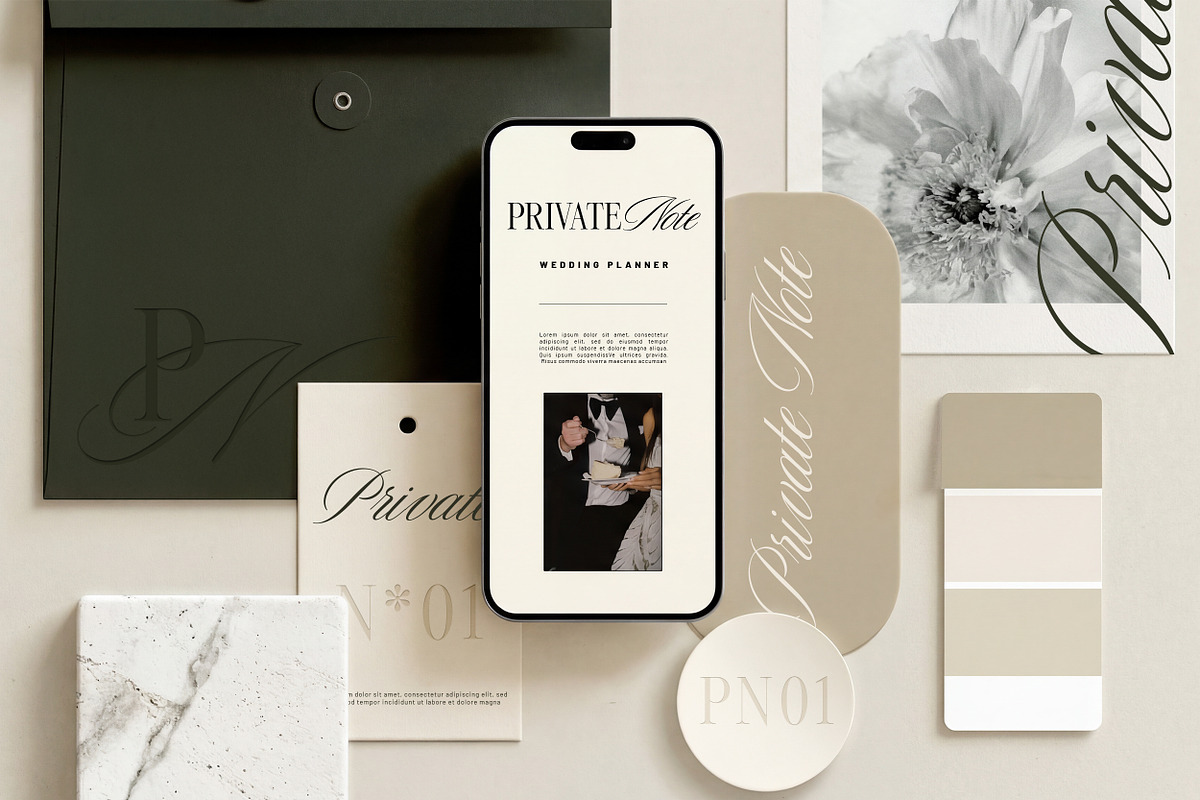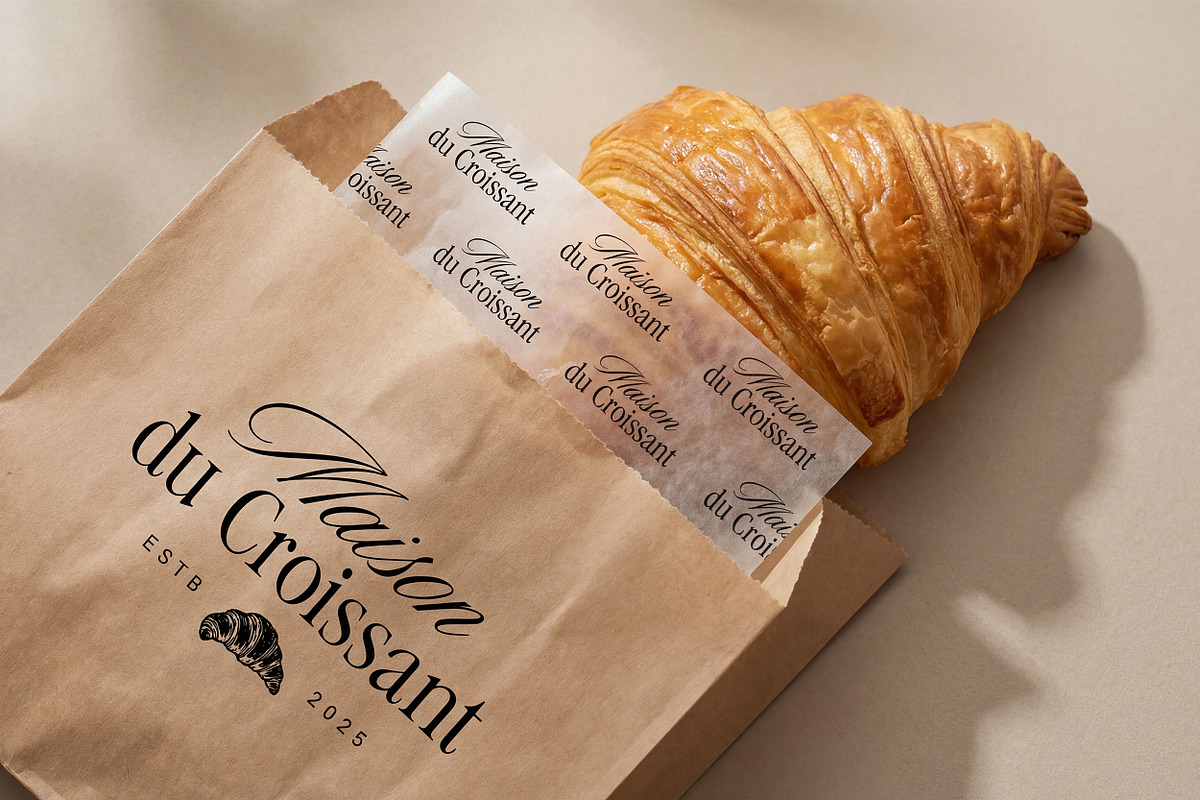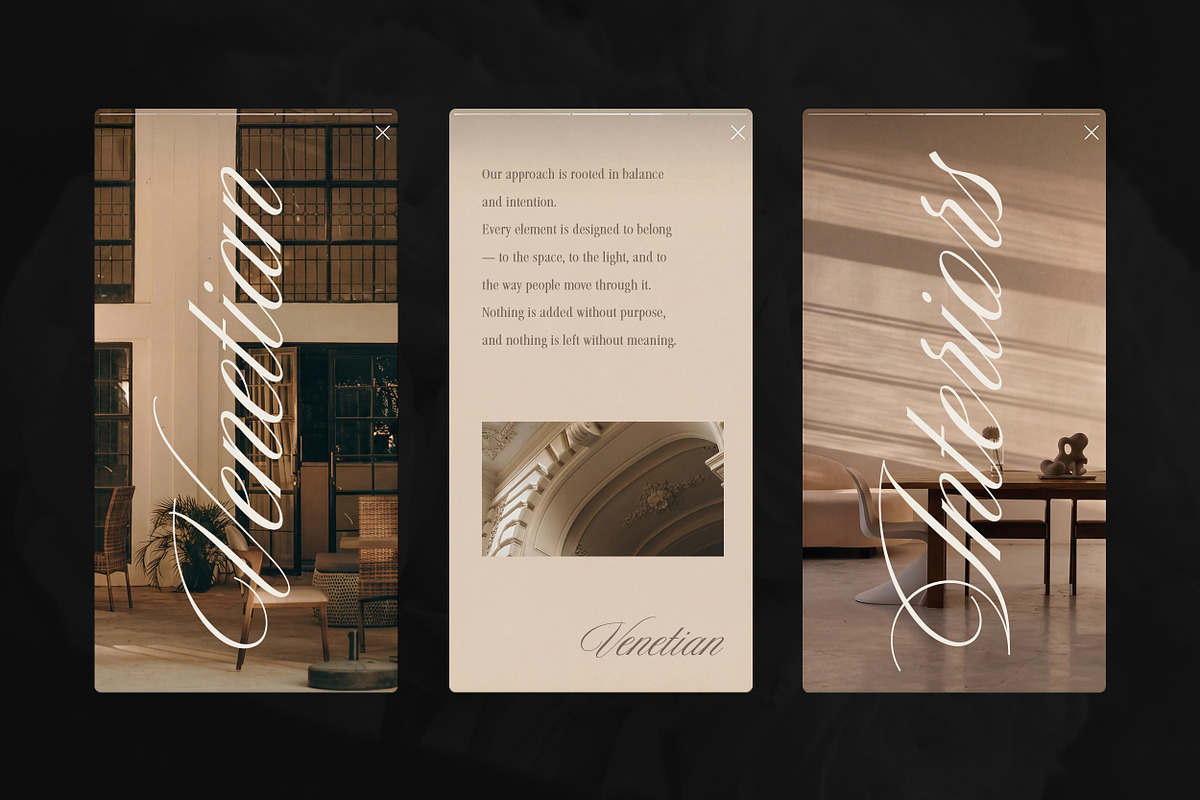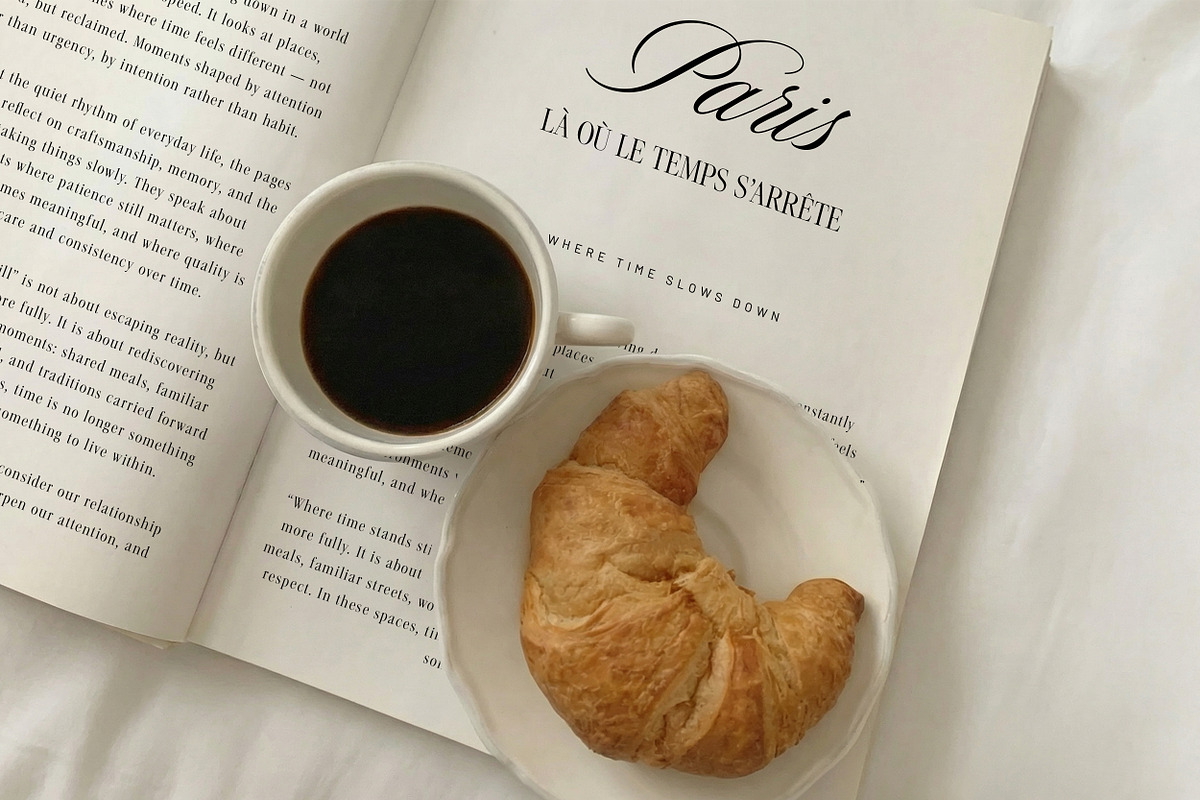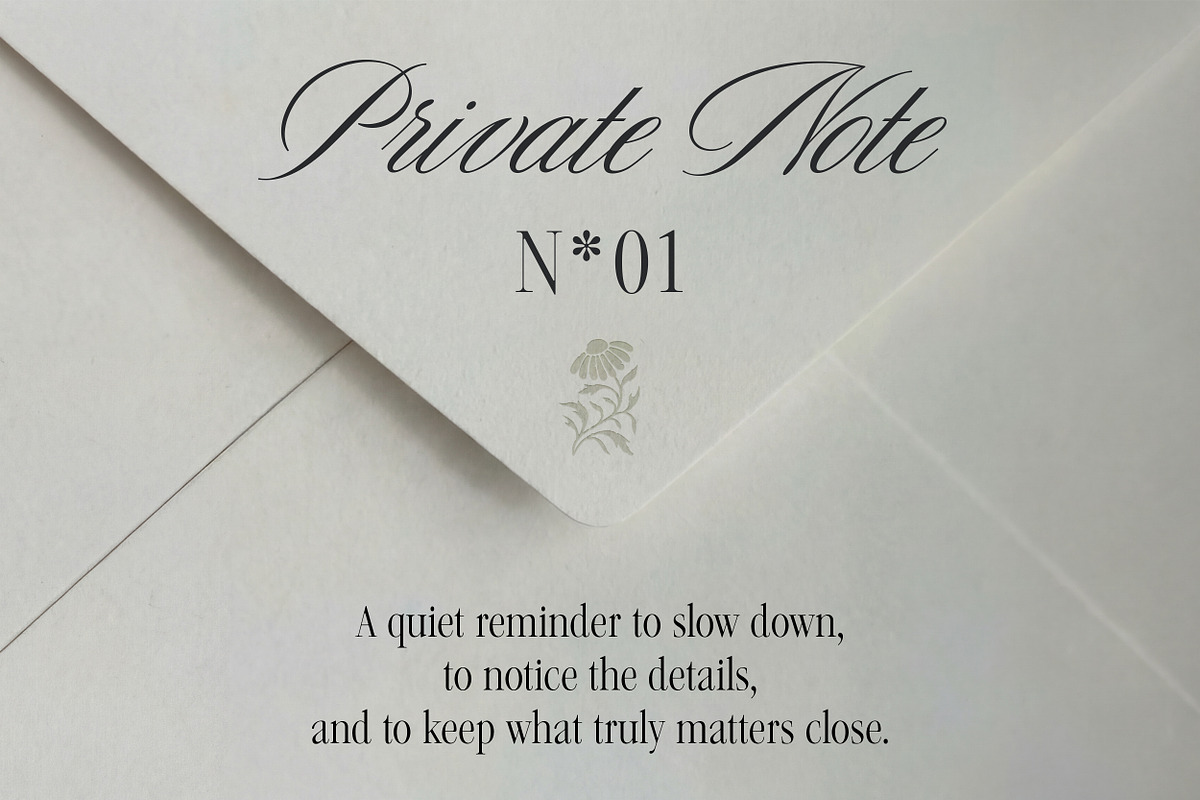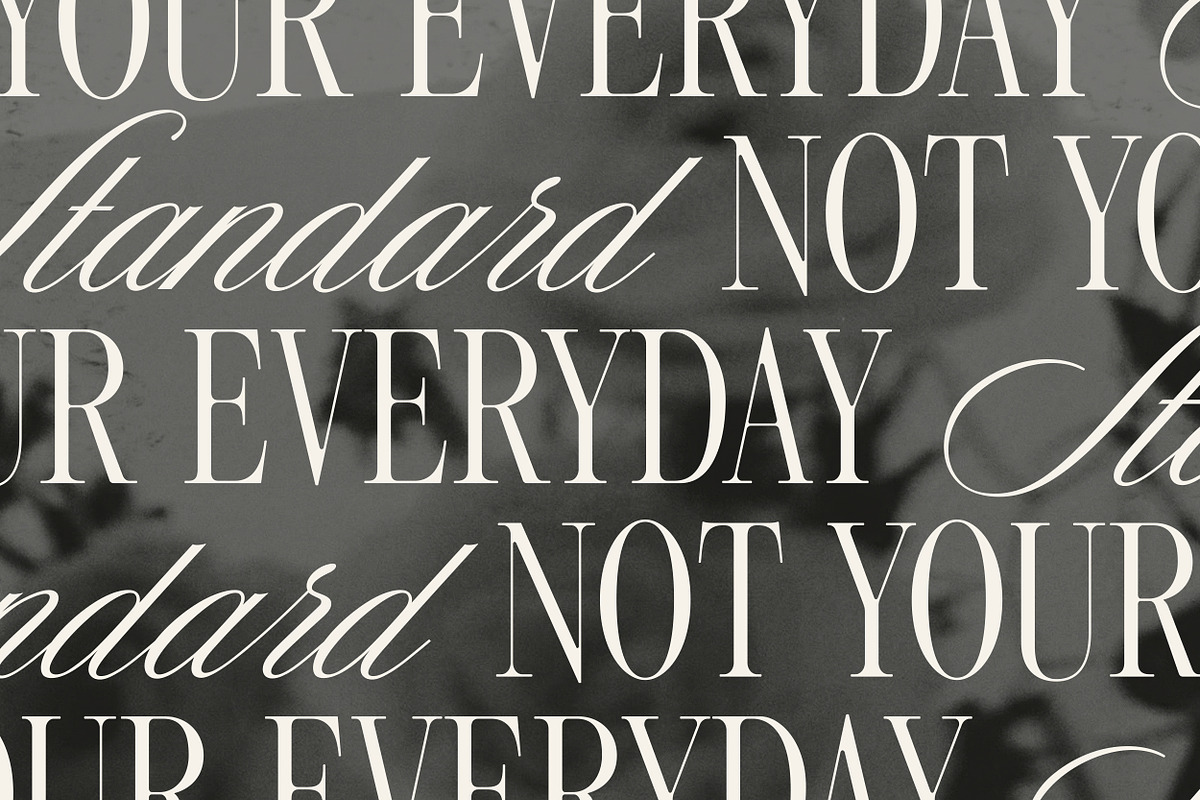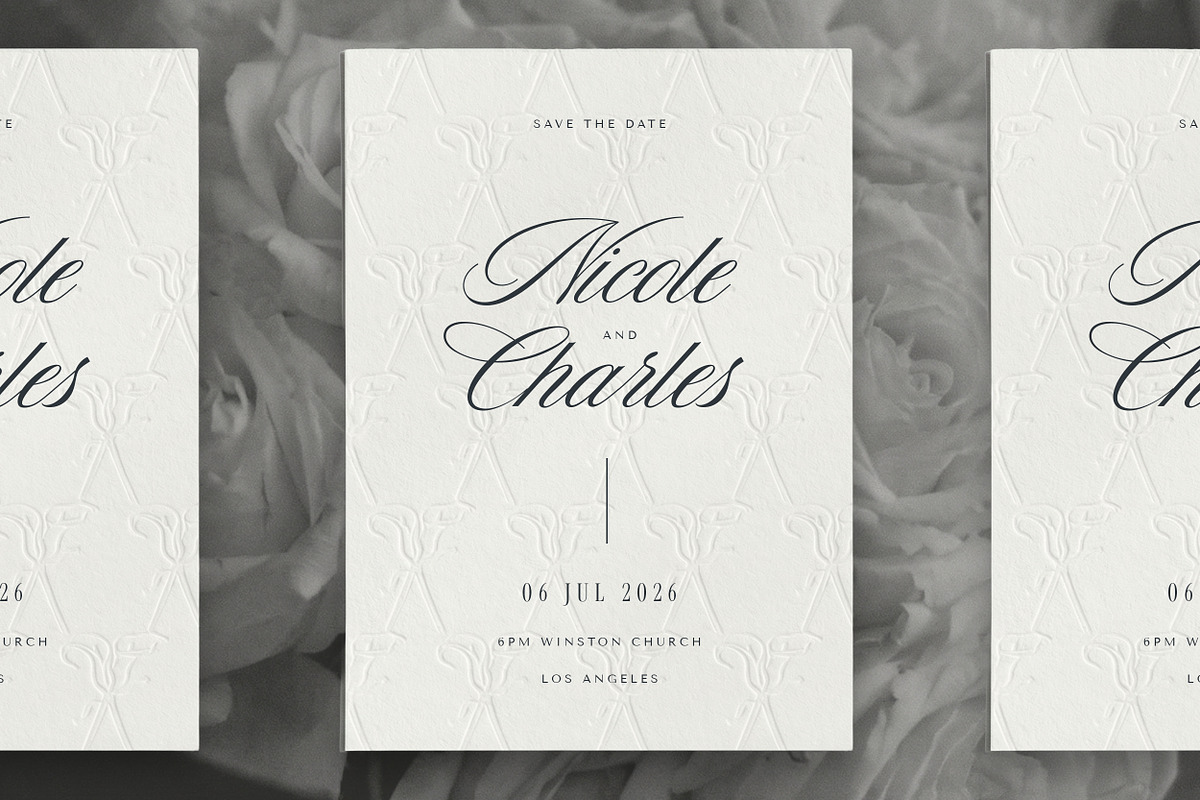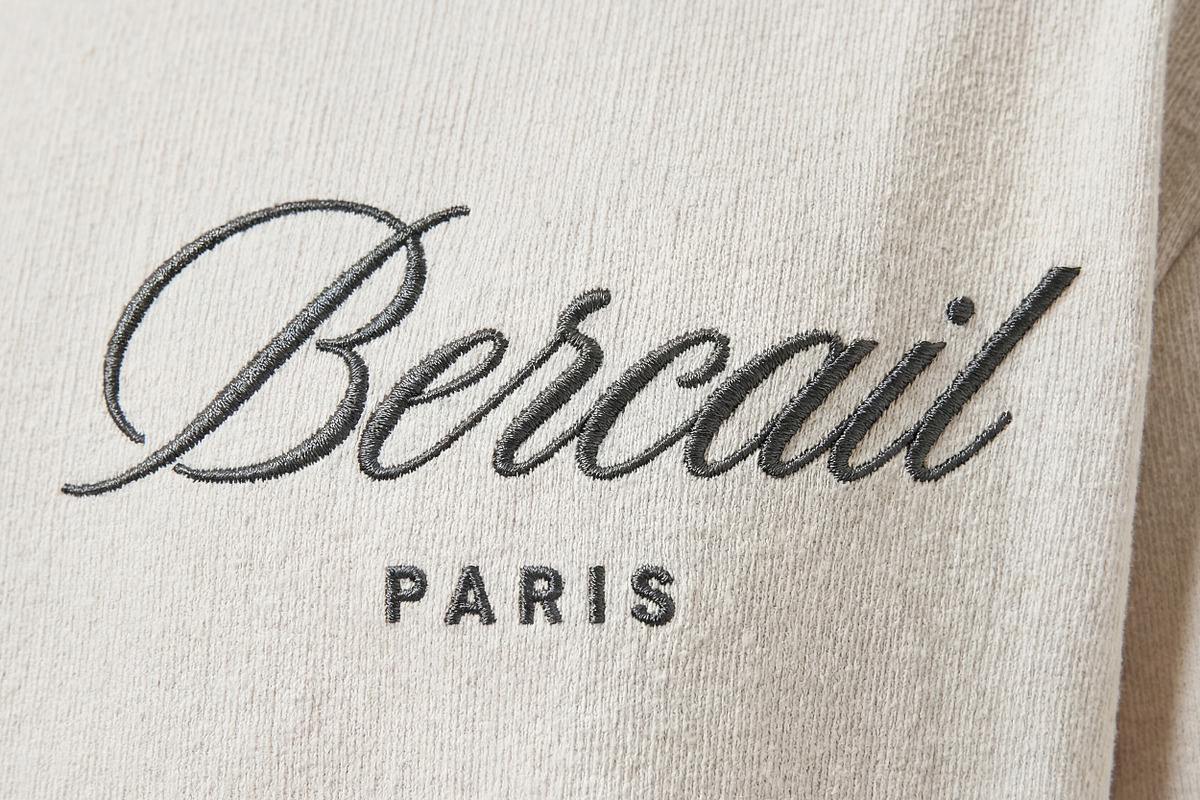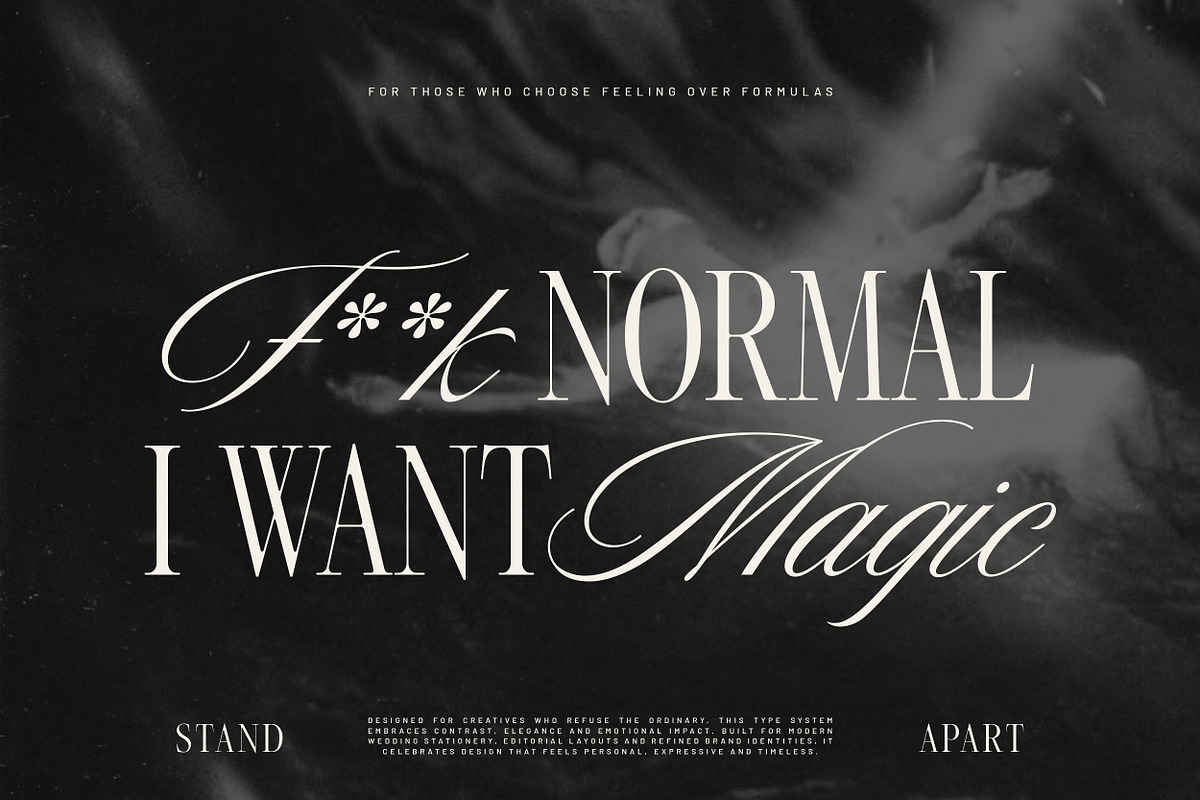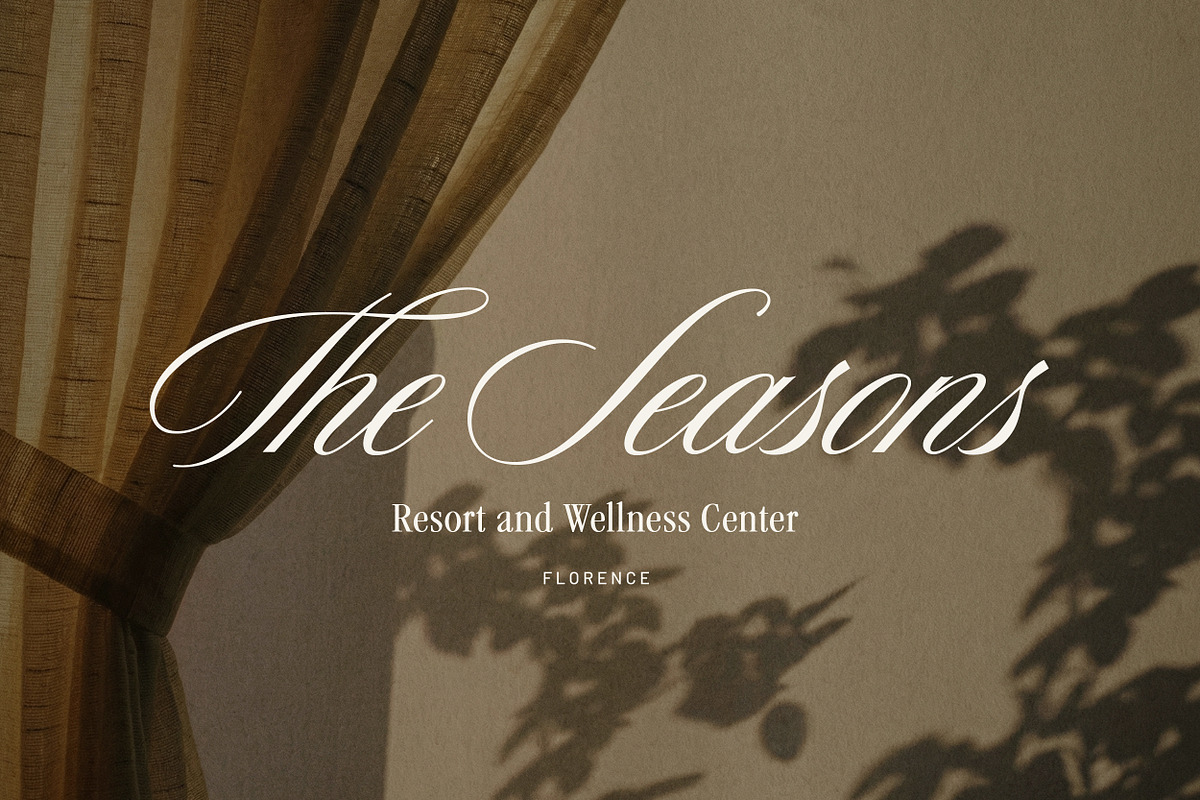
Editorial Society - Luxury Font Duo
Editorial Society is a luxury font duo designed for high-end editorial design, fashion branding and elegant visual identities.
The collection combines a timeless serif with a handwritten script, carefully crafted to work together in a natural and balanced way. This pairing creates a versatile type system that feels sophisticated yet approachable, suitable for both bold headlines and refined branding applications.
The serif font is available in two proportions — Regular and Tall, each including Light, Regular and Bold weights. This makes it ideal for editorial layouts, headlines and longer text compositions where clarity, structure and rhythm are essential.
The script font comes in two distinct styles — Script and Lush. Script is clean and refined, while Lush features more expressive strokes and decorative movement. Each style includes Thin, Bold, Thin Oblique and Bold Oblique, allowing you to move seamlessly from subtle accents to confident statement lettering.
To add personality and natural flow, the script font includes 25 handcrafted ligatures and alternates, designed to enhance lettering compositions without overpowering the overall design.
Editorial Society is perfectly suited for editorial design, fashion and beauty branding, luxury packaging, wedding stationery, logos, refined visual identities and curated social media content.